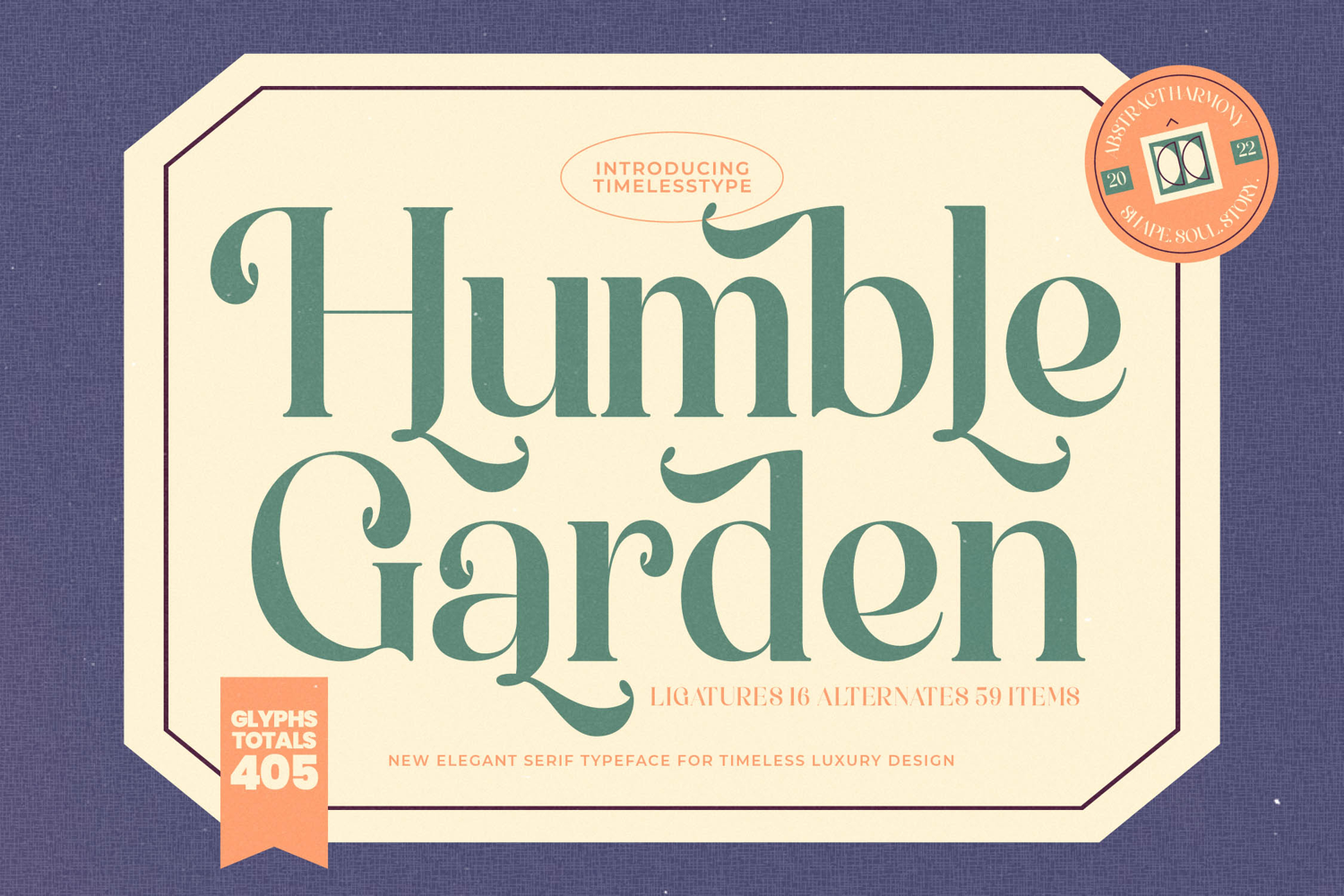
Humble Garden - New Elegant Serif Font
Elevate your design projects with a touch of curated nostalgia and unparalleled grace. Humble Garden - New Elegant Serif Font is a breathtaking display typeface characterized by its dramatic curves and refined, high-contrast weight distribution. This design masterfully fuses classic Victorian elegance with a contemporary readability, ensuring your headlines possess both undeniable authority and a captivating fluidity. It delivers an instant sense of heritage and premium quality, distinguishing brands that prioritize enduring style and visual longevity.
Unleash true typographic artistry through an incredibly rich feature set. Boasting 405 total glyphs, including 16 stylistic ligatures and 59 alternate characters, Humble Garden - New Elegant Serif Font offers unparalleled customization. These decorative swashes and ornate terminals allow designers to craft bespoke wordmarks and intricate lockups, providing the strategic flexibility needed for impactful distinctive branding and unique editorial layouts that demand exclusive attention.